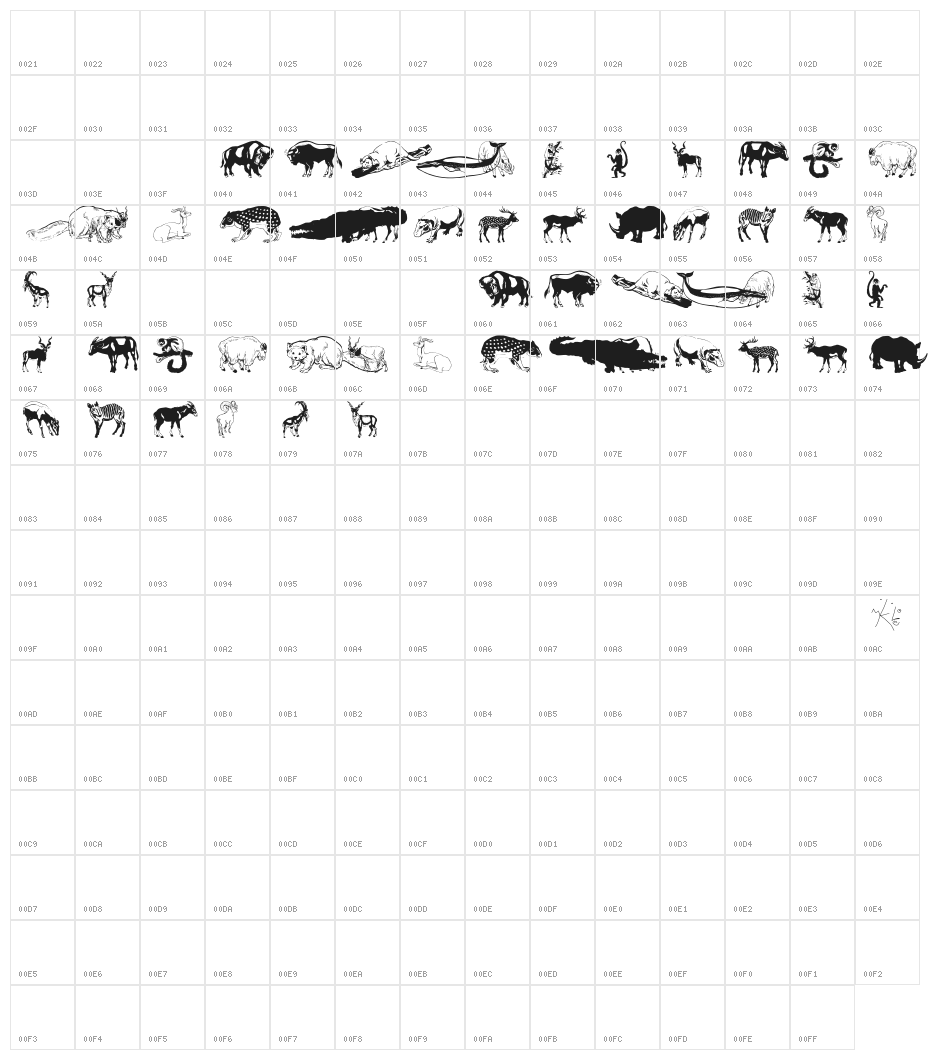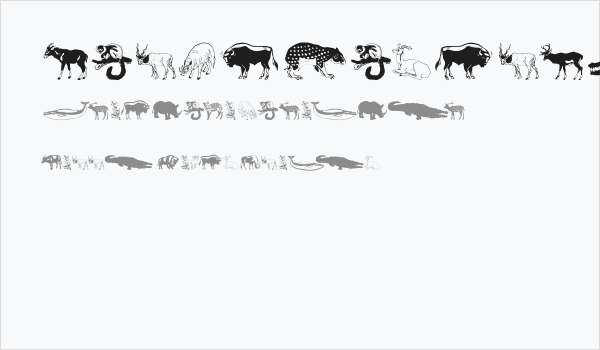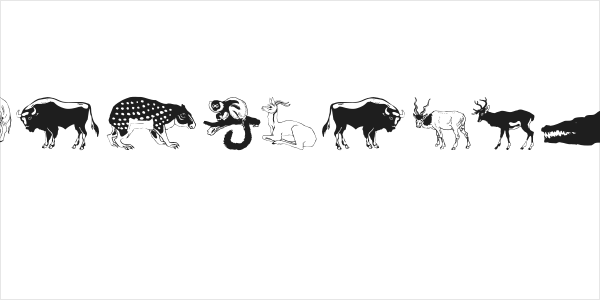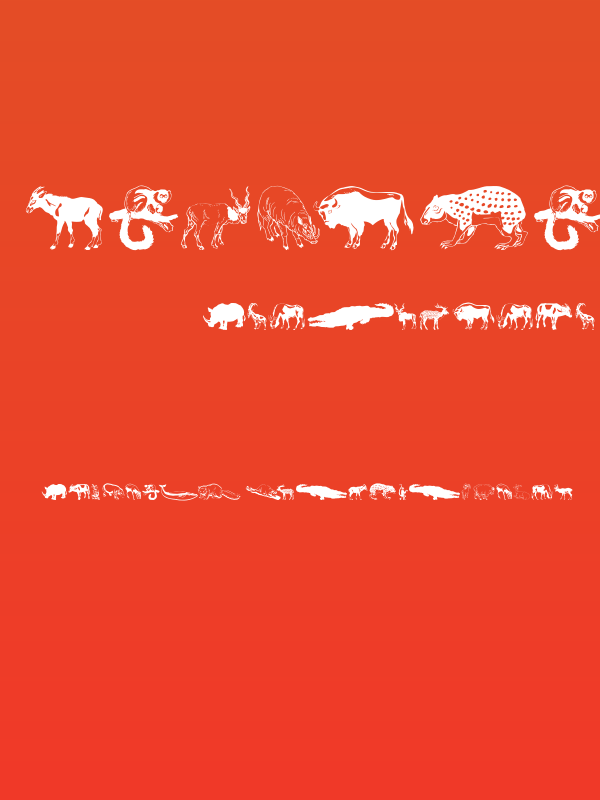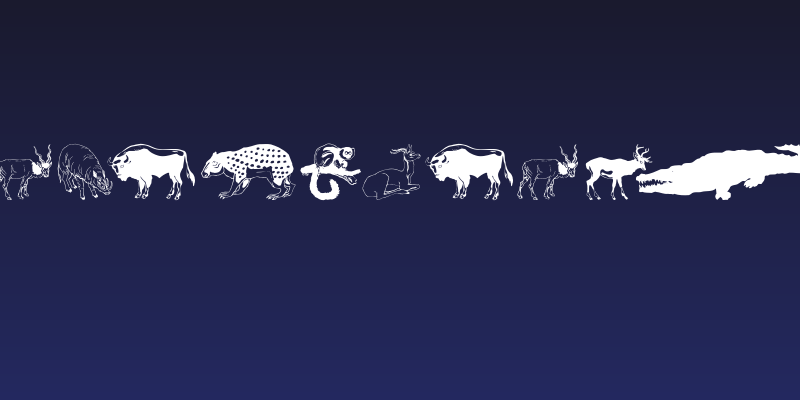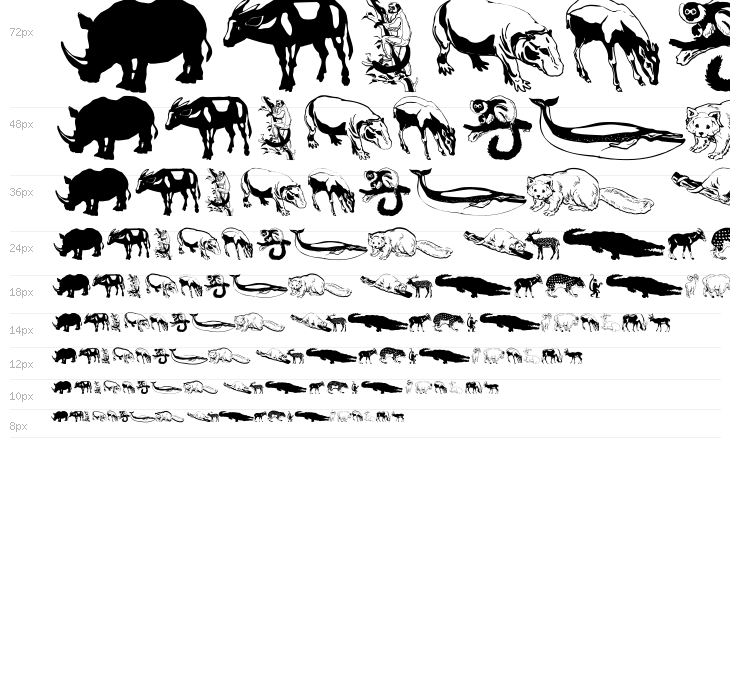
WildAnimalsOne Font
WildAnimalsOne Description
A decorative font composed entirely of detailed animal illustrations representing each character, with a mix of solid black silhouettes and outlined drawings, offering a playful and thematic visual style.
| Overall Style | Decorative, Playful, Thematic |
| Use Case | Logos, Posters, Educational graphics, Themed headlines |
| Proposed Projects | ChildrenΓ’β¬β’s books, educational materials, wildlife posters, themed invitations, creative branding. |